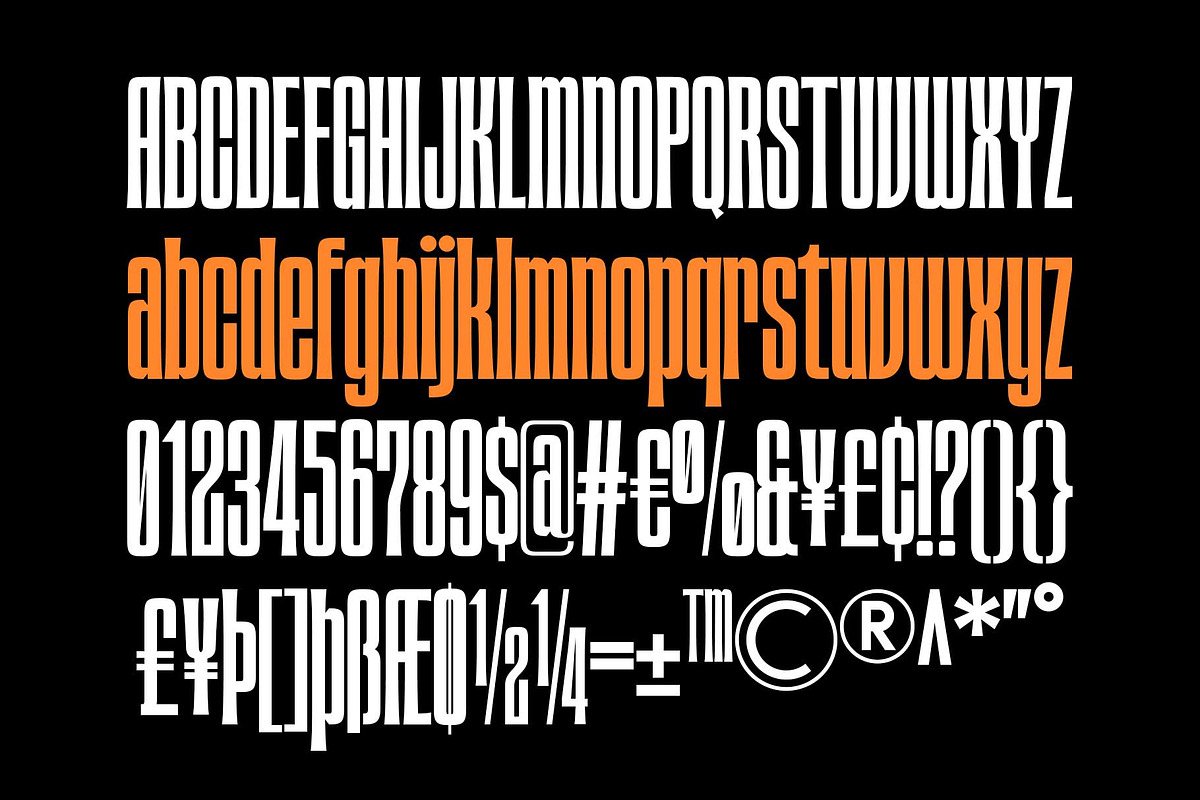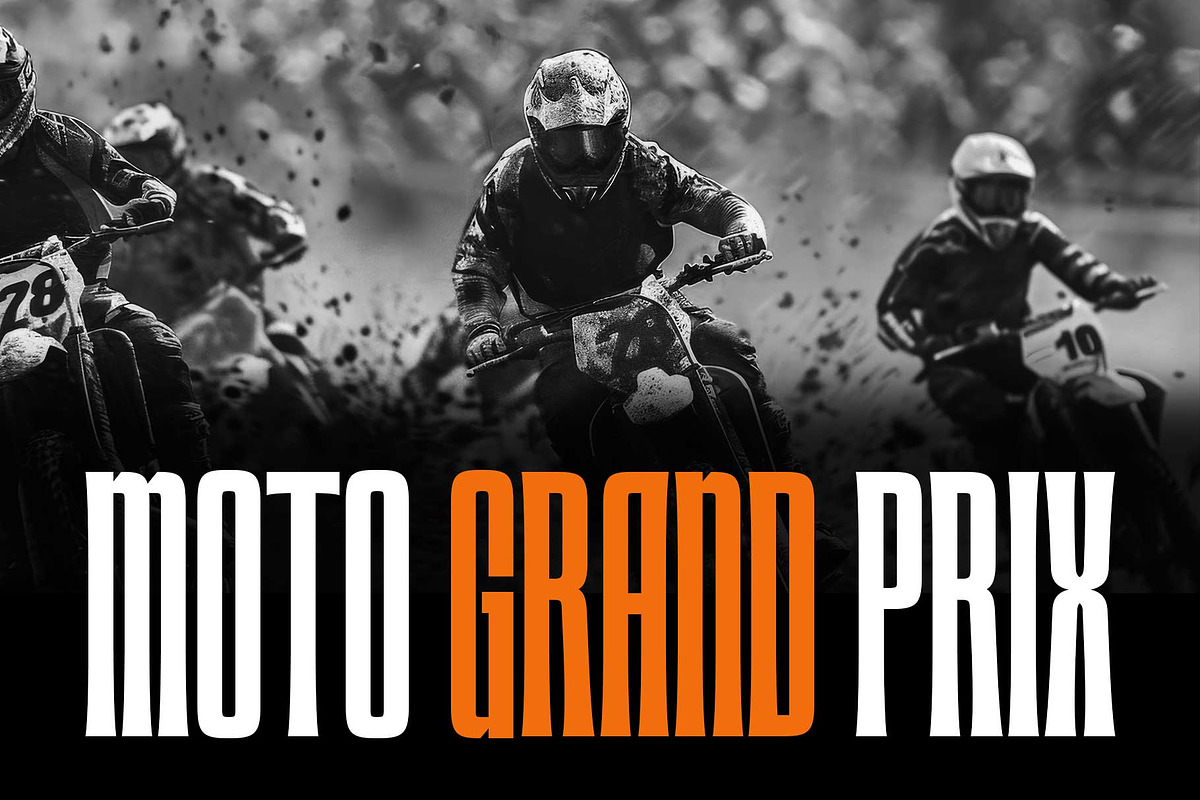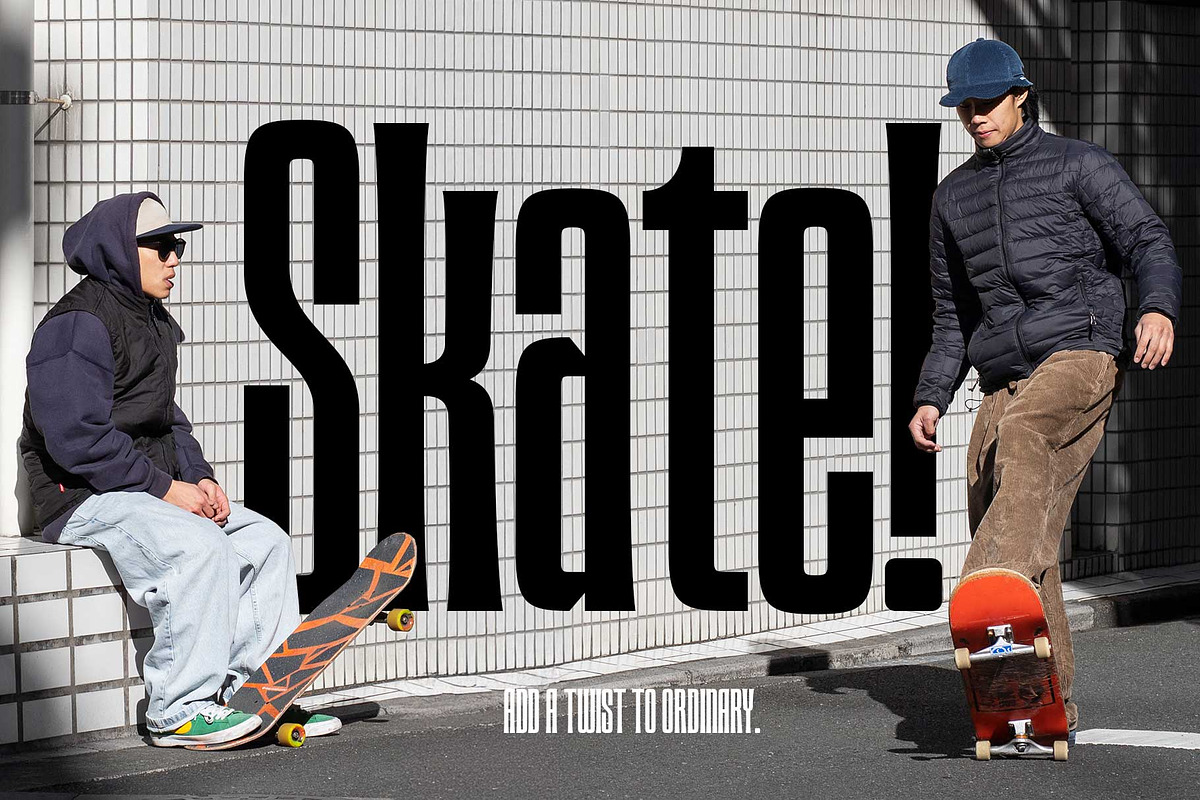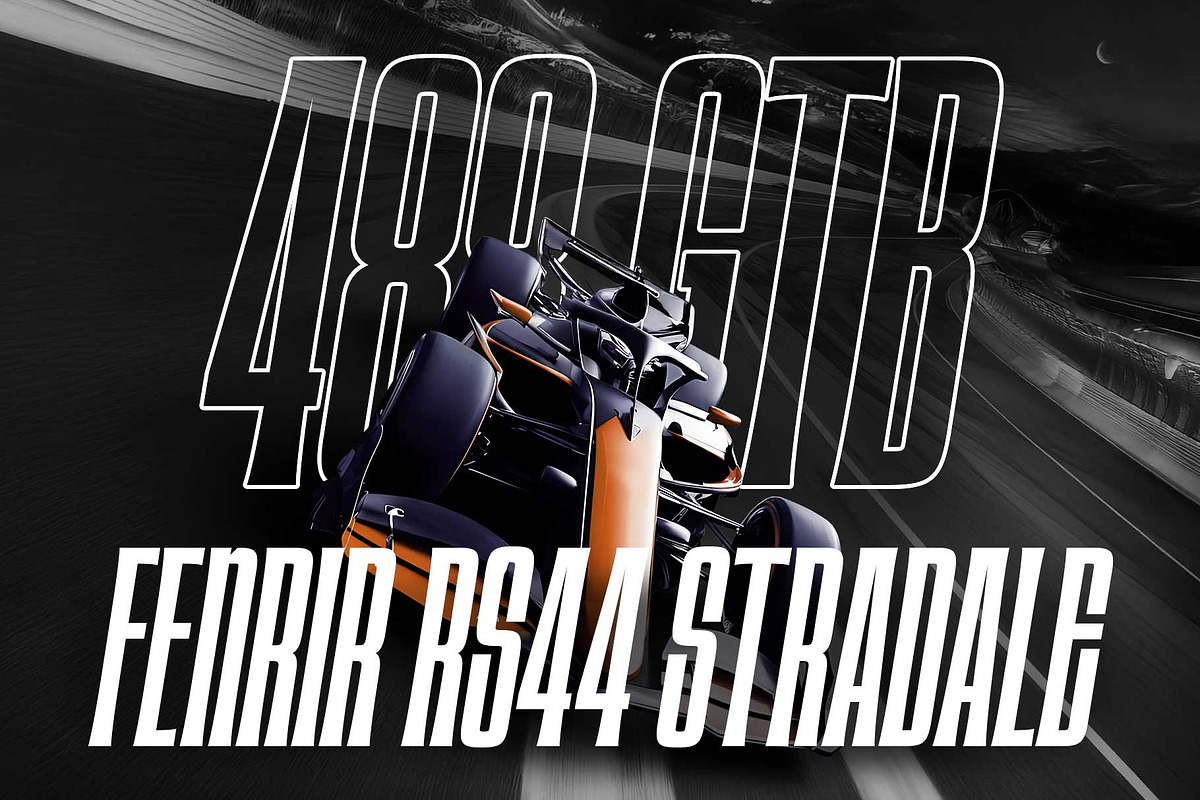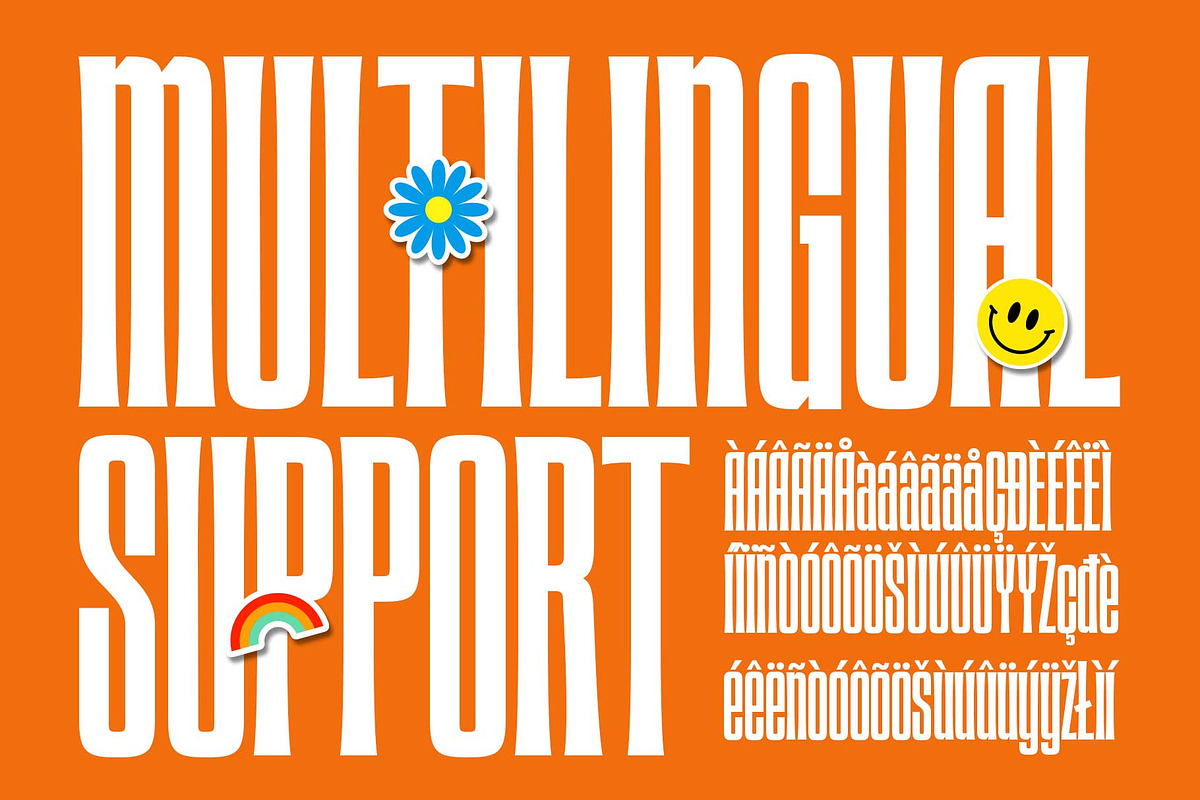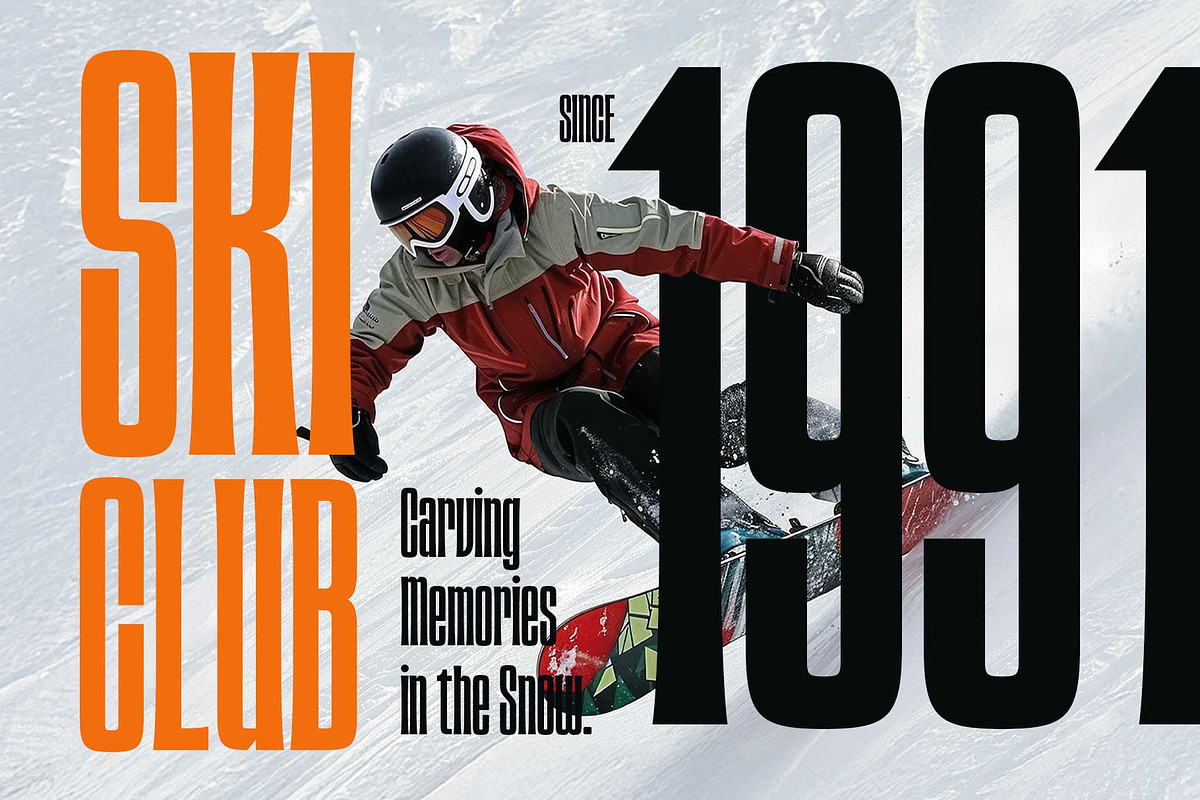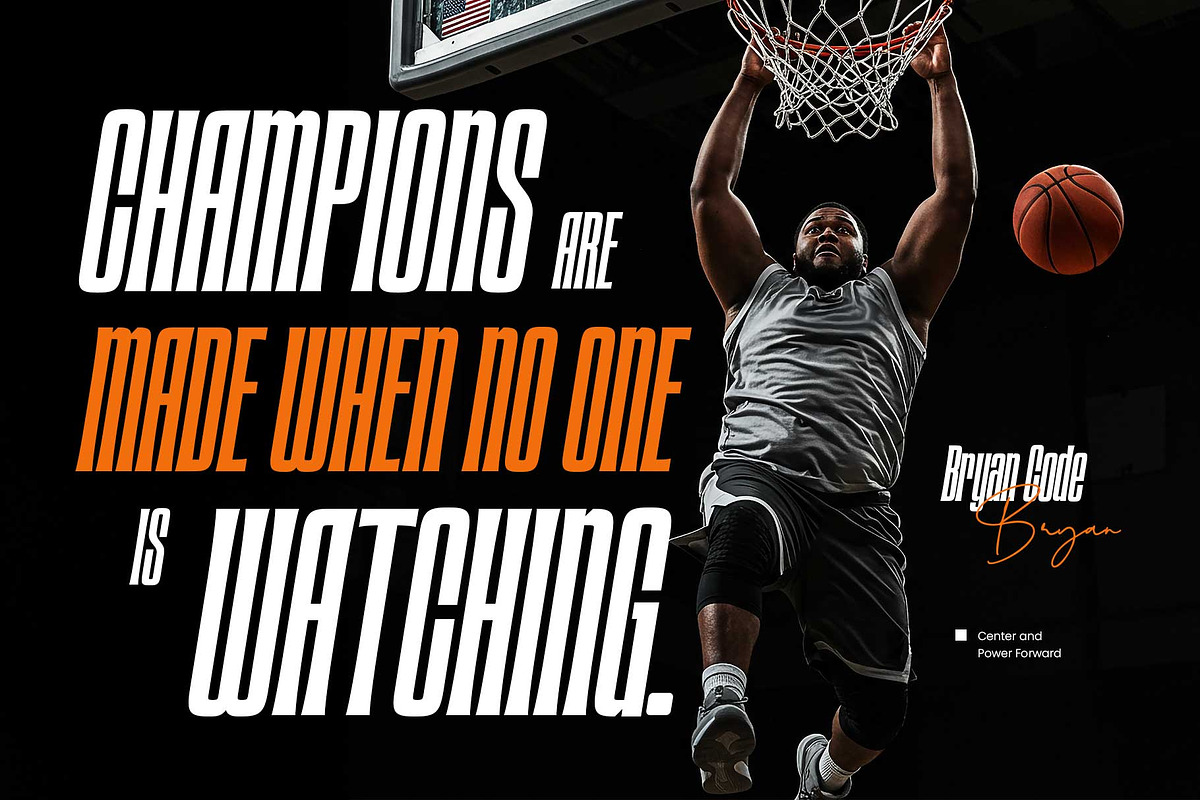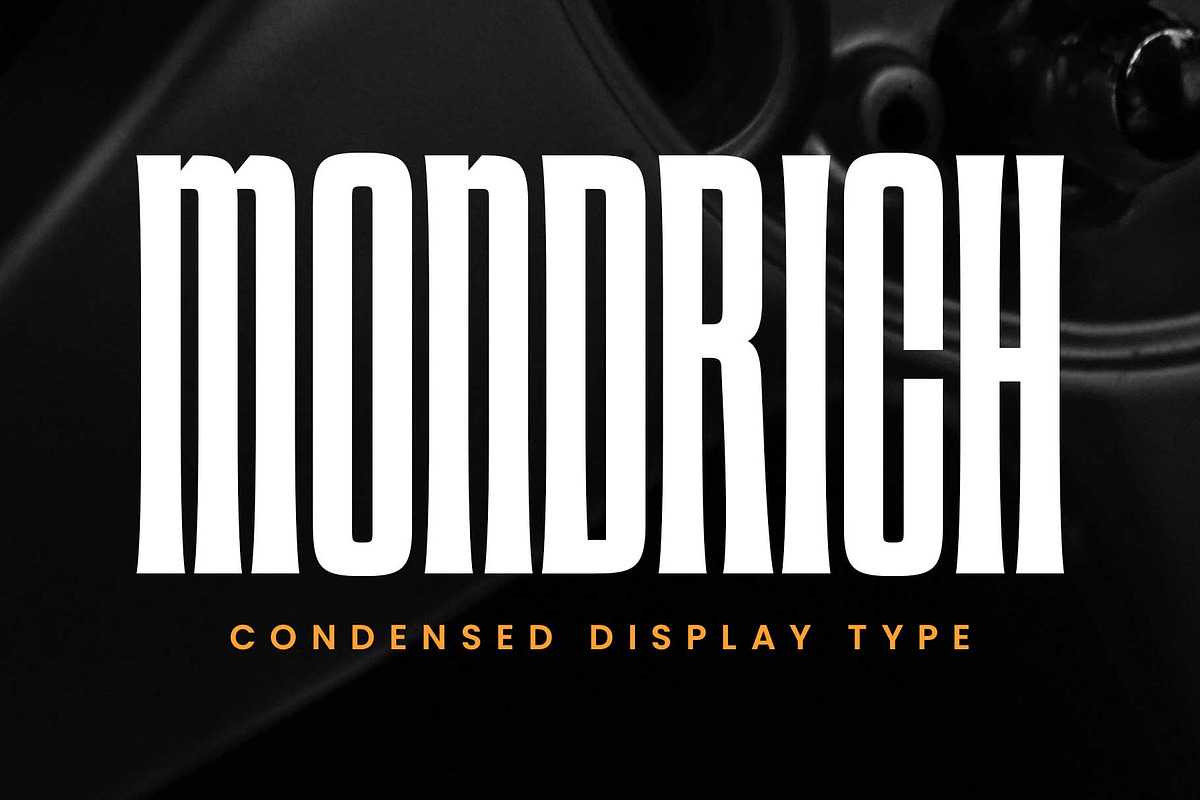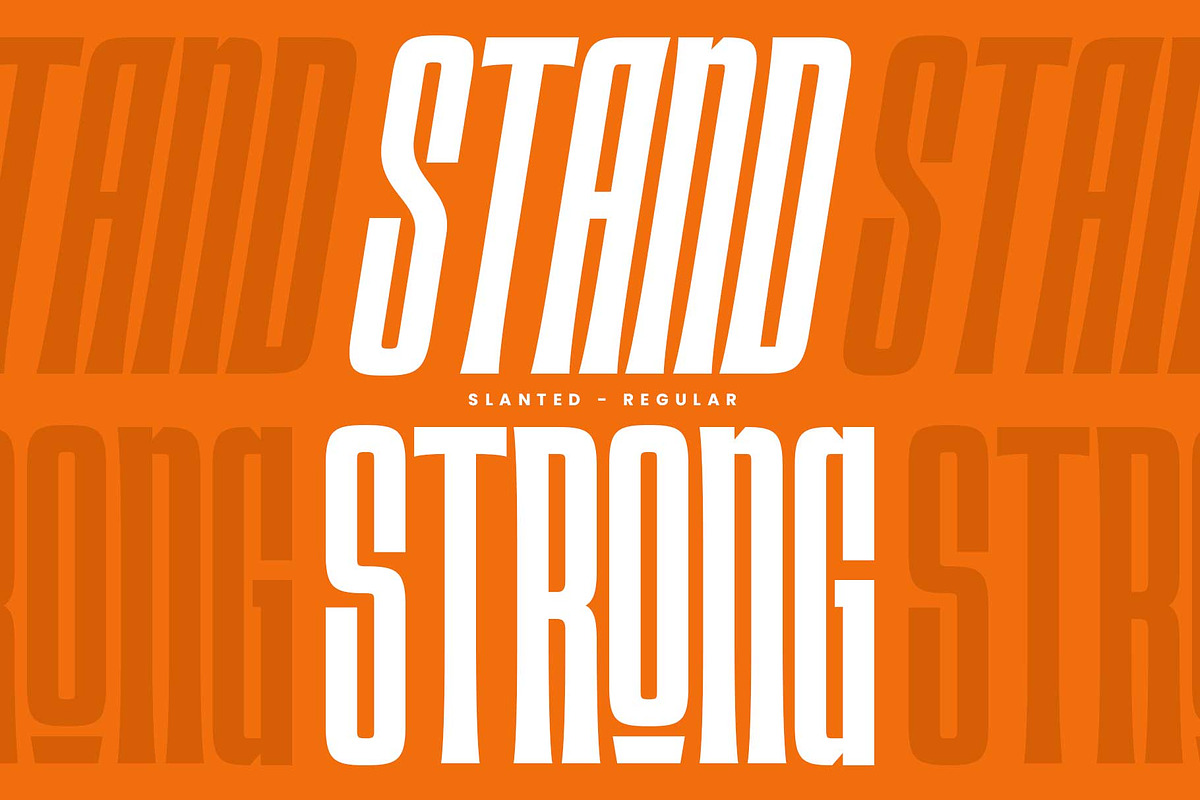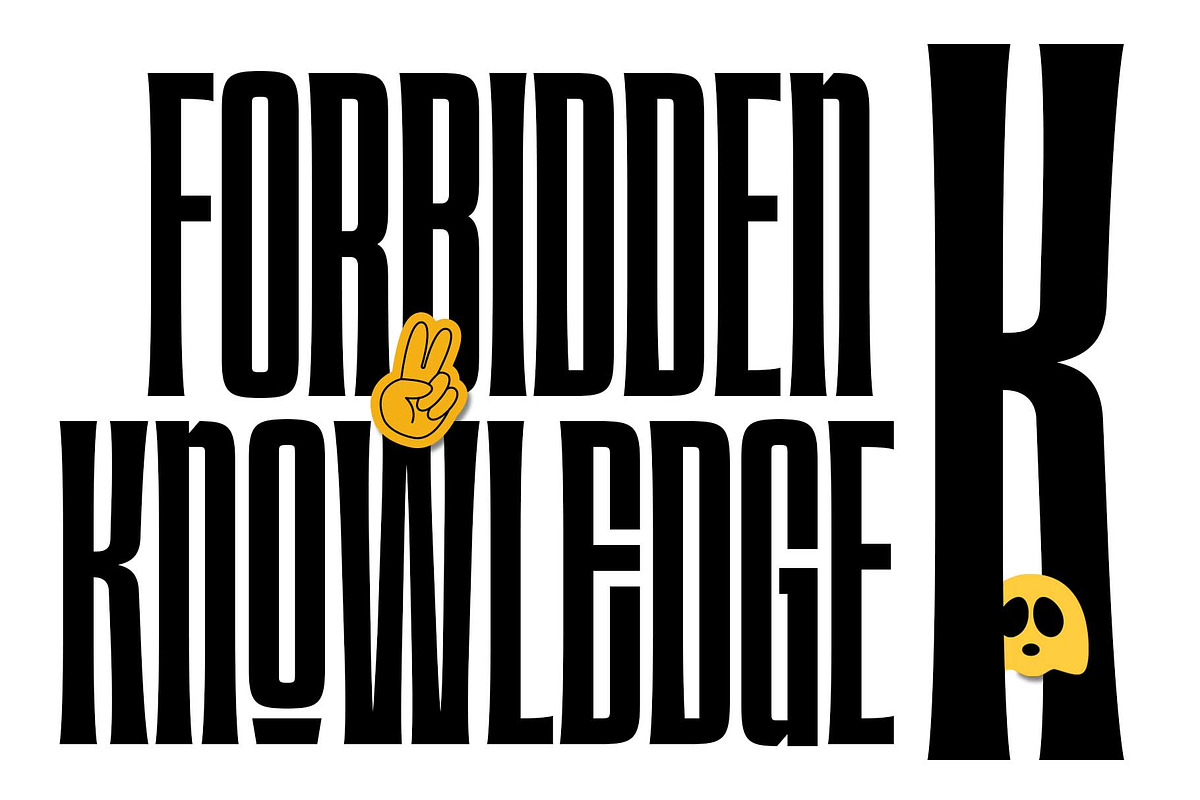
Mondrich - Condensed Display
Mondrich is an ultra-condensed sans-serif typeface. It is a display font with tall proportions, bold weight, and widened stroke tips that give it a classy and stylish appearance. It is versatile and works well across many themes, including vintage, sports, futuristic, and modern designs.
Mondrich is available in 2 styles: Regular and Slanted. It is perfect for headlines that need a strong typographic touch. Whether you are designing a logo, magazine, poster, motion graphics, or branding project, this font delivers a bold statement—firm, distinctive, and full of unique character.
- Stylistic alternates